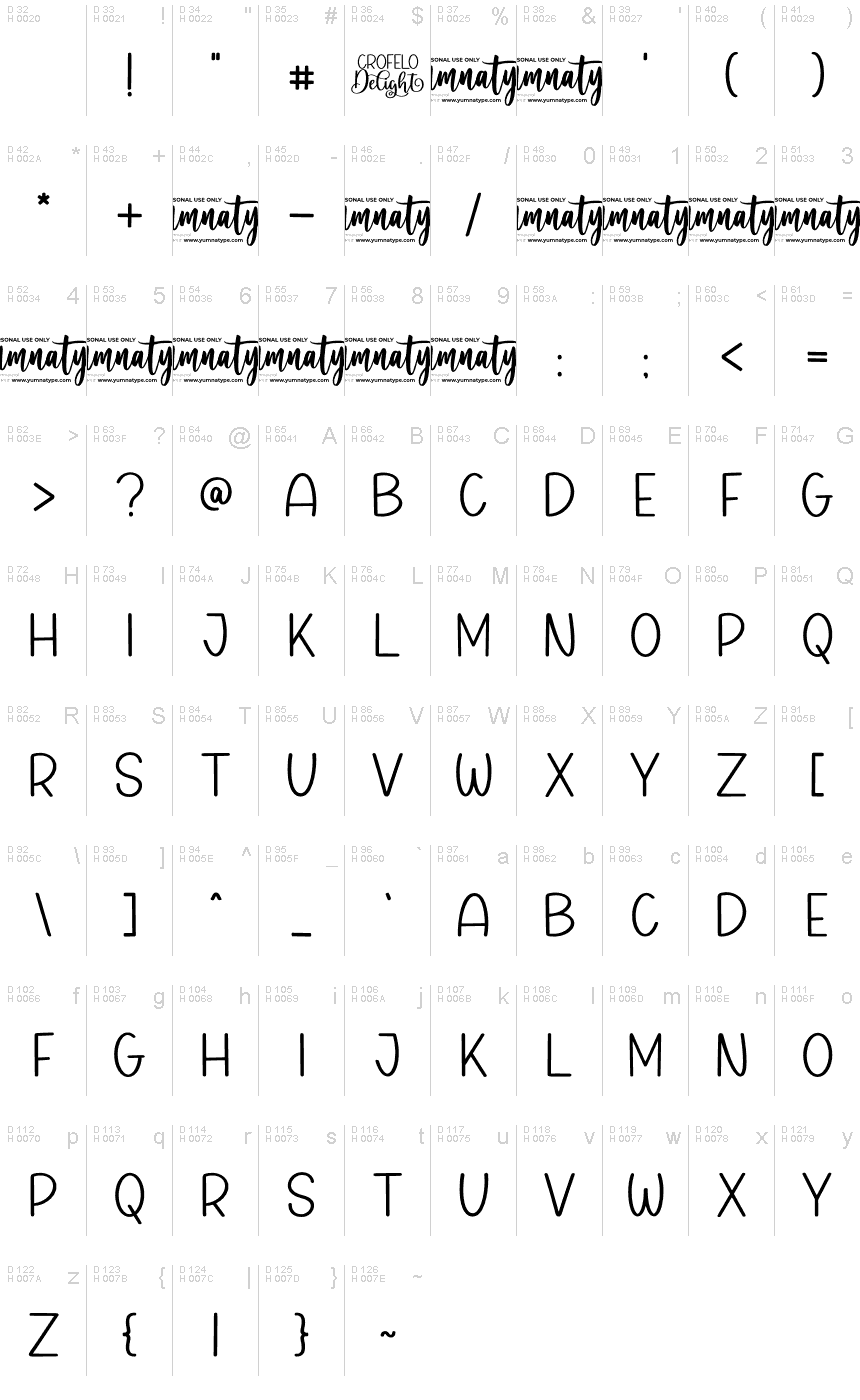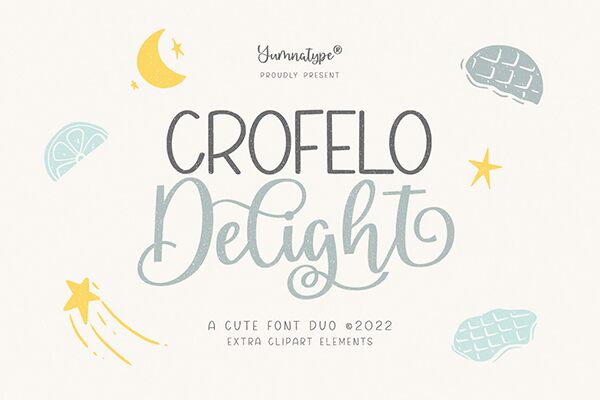
Crofelo Delight, designed by Yumna Family, is the ultimate way to express your individuality. This handwritten font style combines a cute script with a gorgeous display font, allowing you to create a unique and personalized design. The semi-light weight of Crofelo Delight adds a delicate touch to your projects.
This versatile font duo is perfect for a variety of design projects. Use it to create eye-catching posters, captivating logos, stunning book covers, and memorable branding materials. Crofelo Delight also shines as headings in printed products and merchandise. It's ideal for adding impactful quotes to social media campaigns.
Explore the font preview for inspiration on how to make the most of this delightful typeface. With Crofelo Delight, your designs will truly stand out and leave a lasting impression on your audience.